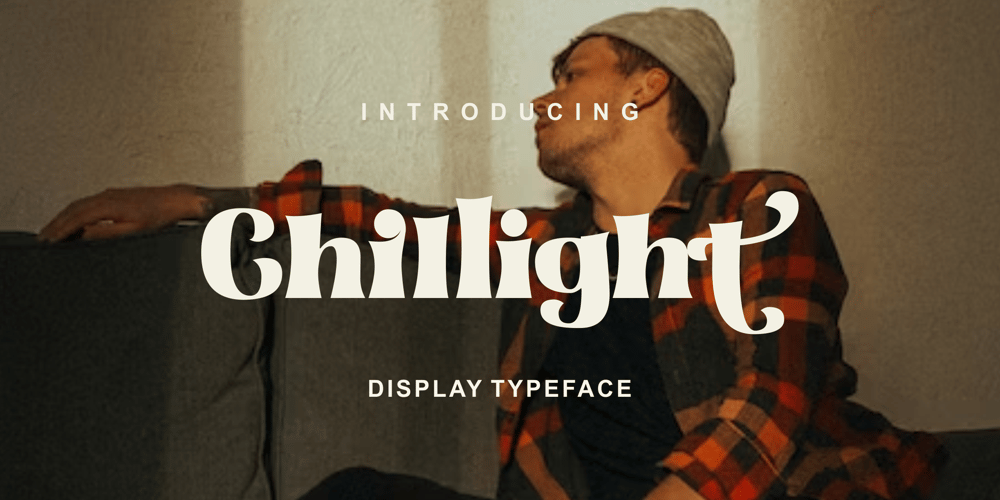
Chillight Font Family was designed by Zamjump and published by Zamjump. Chillight contains 1 styles and family package options. Chillight is a serif typeface that is unique and has character, having a narrow, sharp width and ends. making it effective when used at large sizes for logotypes or headlines.